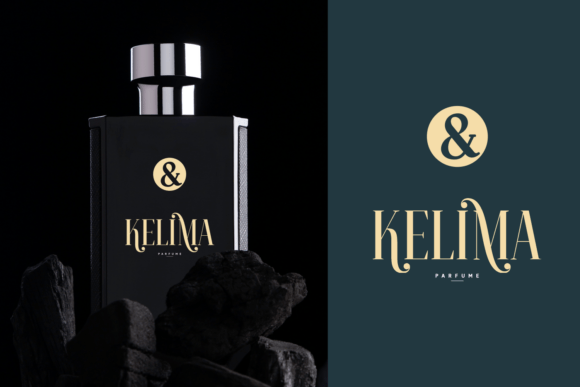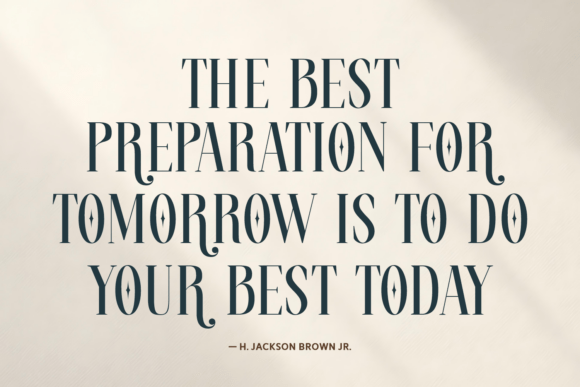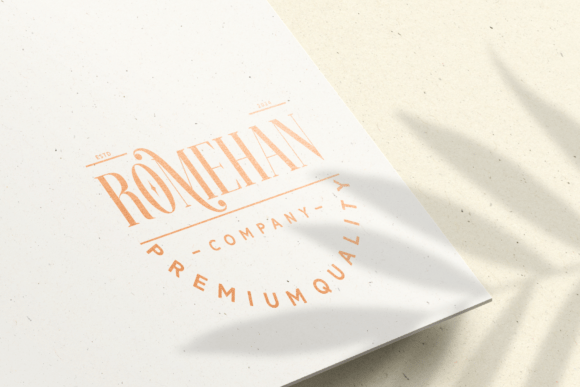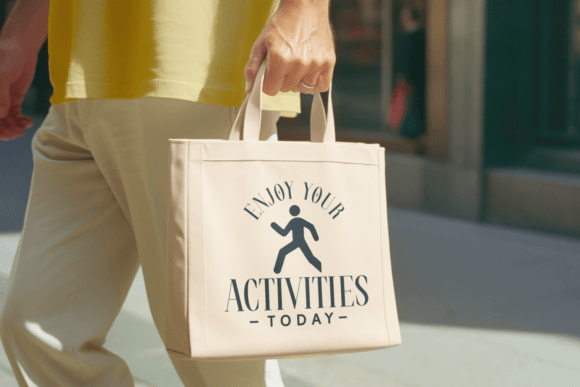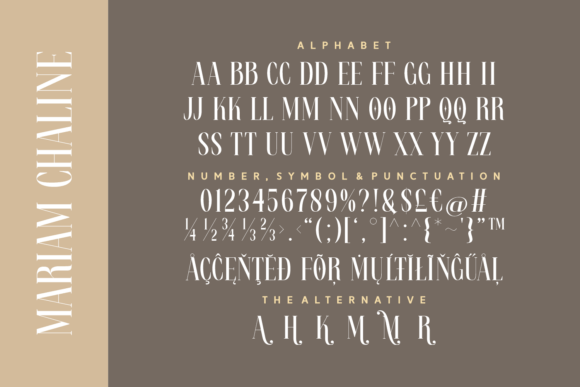
Introduction to Mariam Chaline Font
Mariam Chaline is a tall, elegant serif font designed with sophistication and modern style in mind.
Its elongated letterforms and refined contrast make it a perfect choice for fashion branding, editorial layouts, magazine headlines, and luxury packaging Mariam Chaline brings a sense of timeless beauty and high-end elegance to every design it graces.
Key Features of Mariam Chaline Font
Why Choose Mariam Chaline Font?
Mariam Chaline Font offers exceptional quality and versatility, making it a valuable addition to your design toolkit. Whether you’re creating for personal projects or commercial use, Mariam Chaline Font delivers professional results.